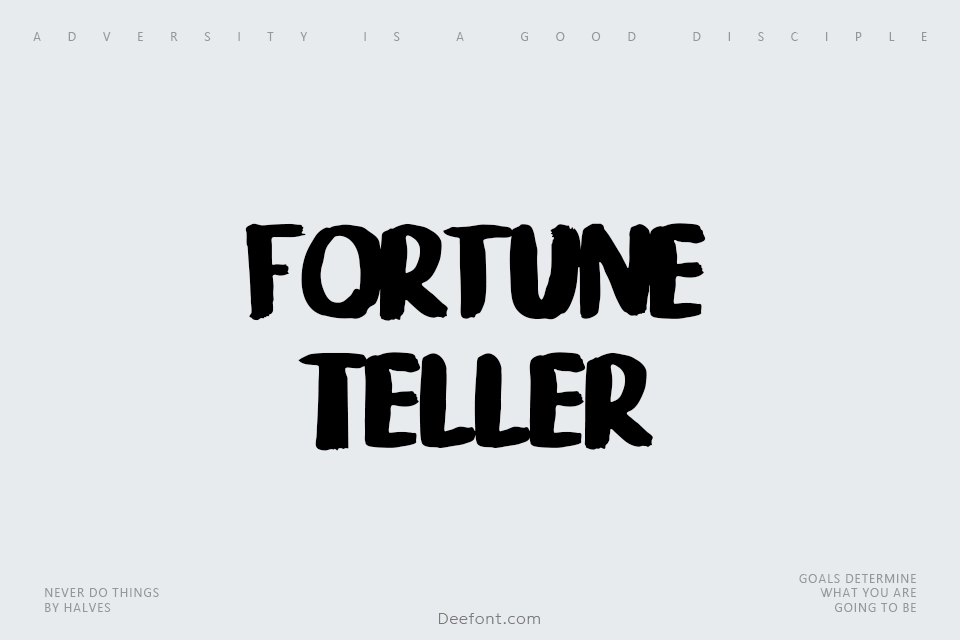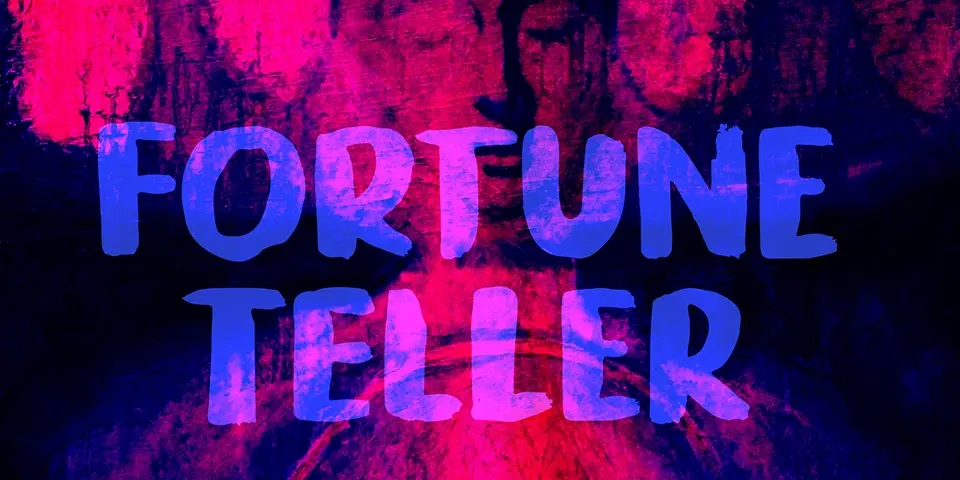
Fortune Teller Font
Fortune Teller is a bold and dynamic brush script font designed with semi-expanded width to deliver strong visual impact. Perfect for titles, headlines, and branding projects, this versatile typeface combines an organic brush style with bold weight for memorable messaging. Ideal for packaging design, social media graphics, advertising campaigns, and creative projects requiring eye-catching appeal and unique personality in typography.